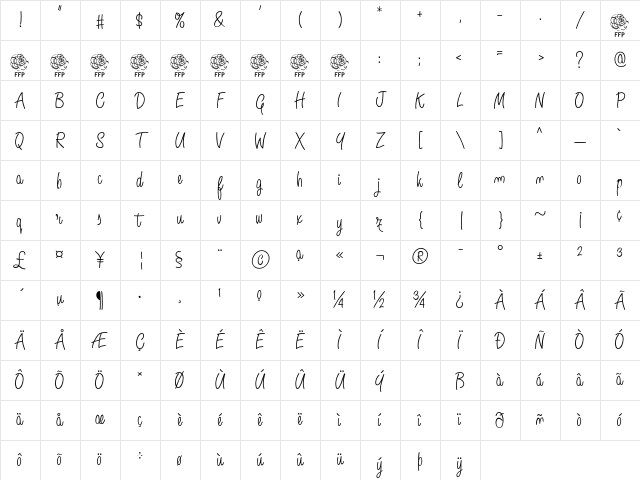
Complete Angelique Rose FFP glyph index. Displaying only characters natively supported by Angelique Rose FFP font.
Angelique Rose is a composed and adaptable typeface that performs quietly and consistently across a wide range of design contexts.